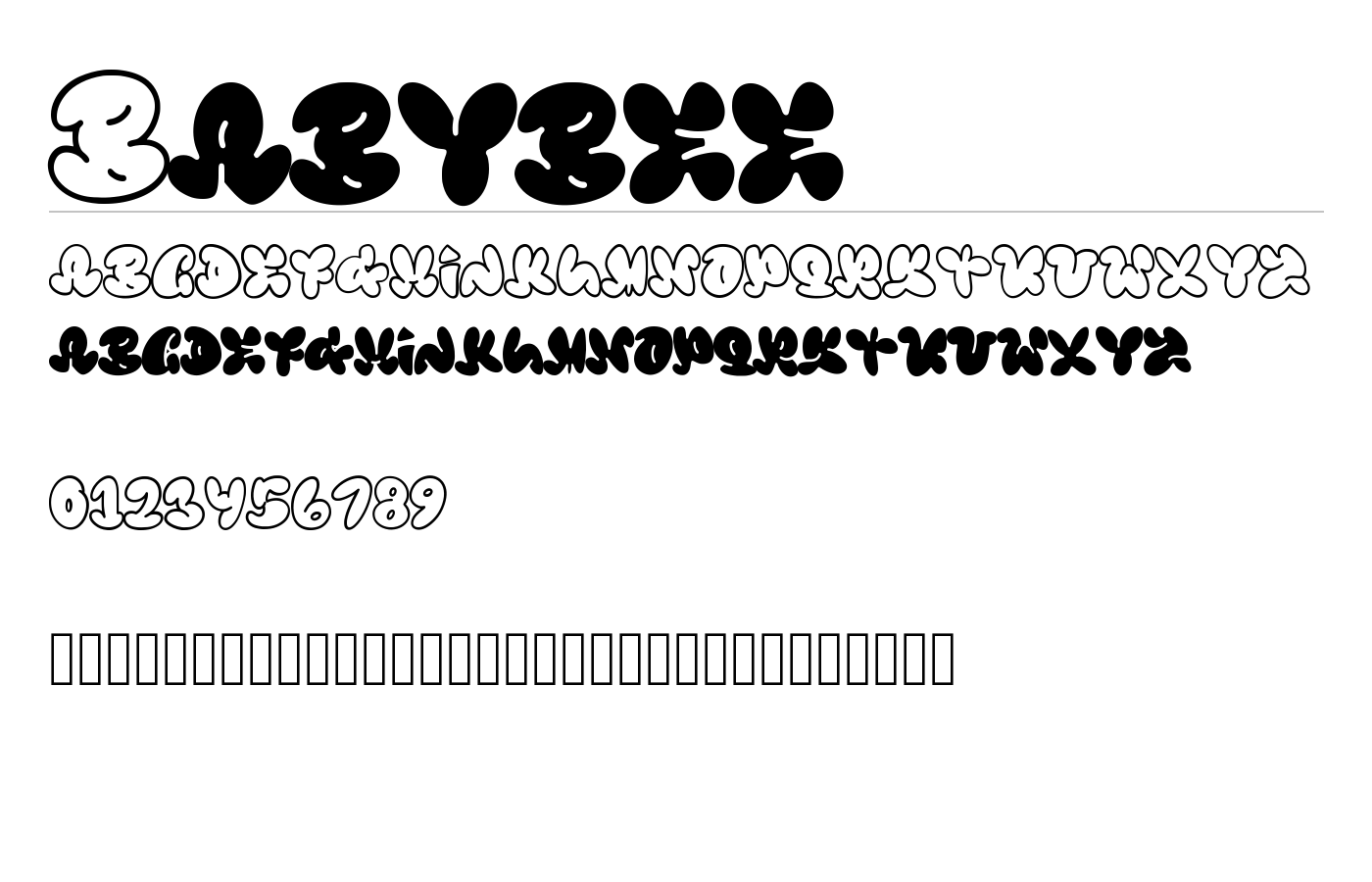
Babybee is a playful, bubble-style display font characterized by its thick, rounded letterforms with soft curves and a bold presence. Its whimsical shapes and chunky weight give it a fun, friendly vibe that works perfectly for children’s products, party invitations, or any design seeking a lively, cheerful tone. This font shines best in headlines or logos where a joyful, eye-catching personality is desired.
Babybee Font